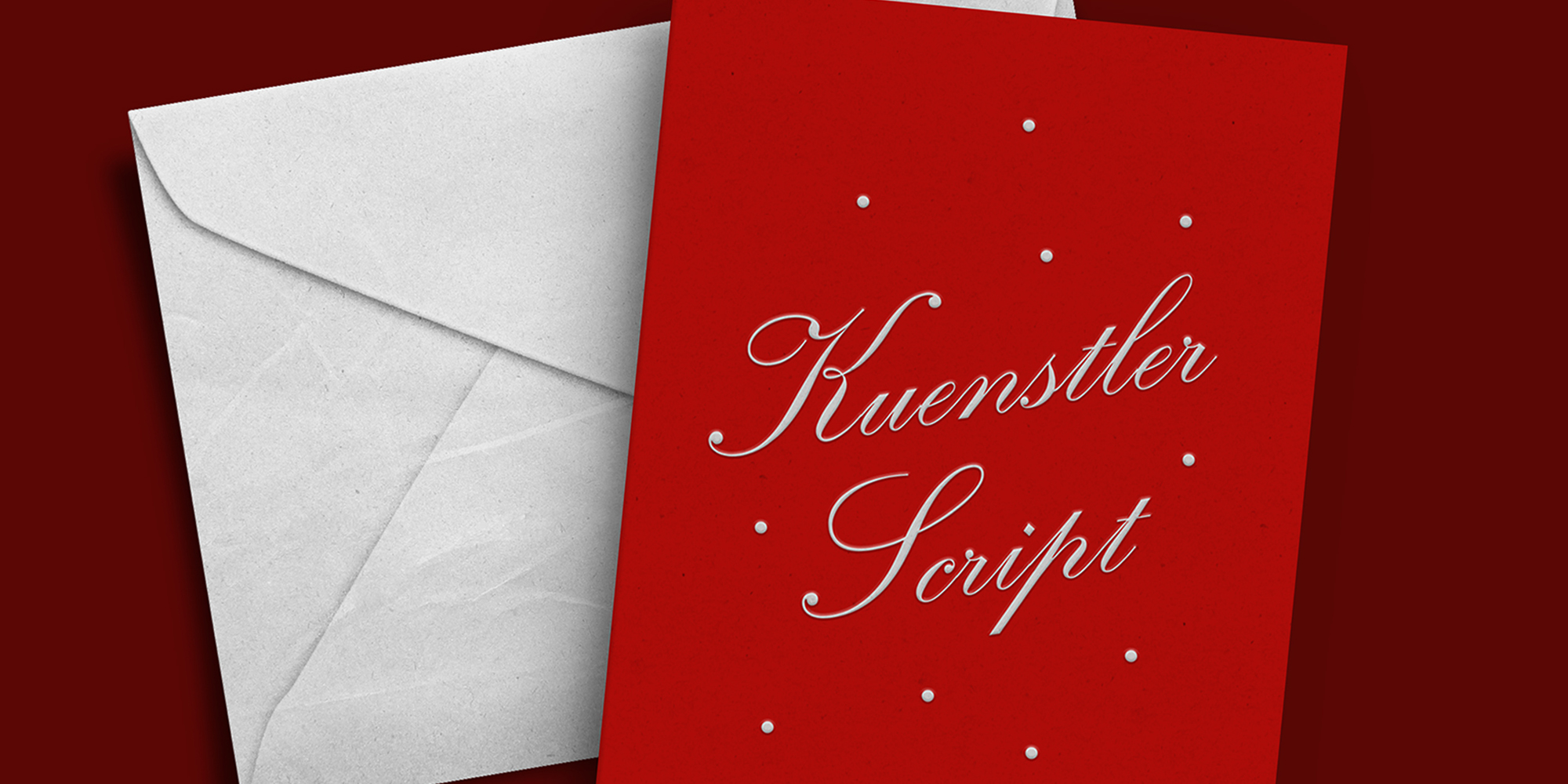
Kuenstler Script Font Free Download is an elegant and classic script typeface that beautifully mimics traditional calligraphy. Its flowing strokes and sophisticated curves make it ideal for wedding invitations, branding, logos, and any project that requires a refined, timeless look.
This font’s exquisite design captures the artistry of handwritten scripts, offering a graceful and personal touch that enhances the emotional appeal of your work. Kuenstler Script adds charm and sophistication to headlines, signatures, and decorative text.